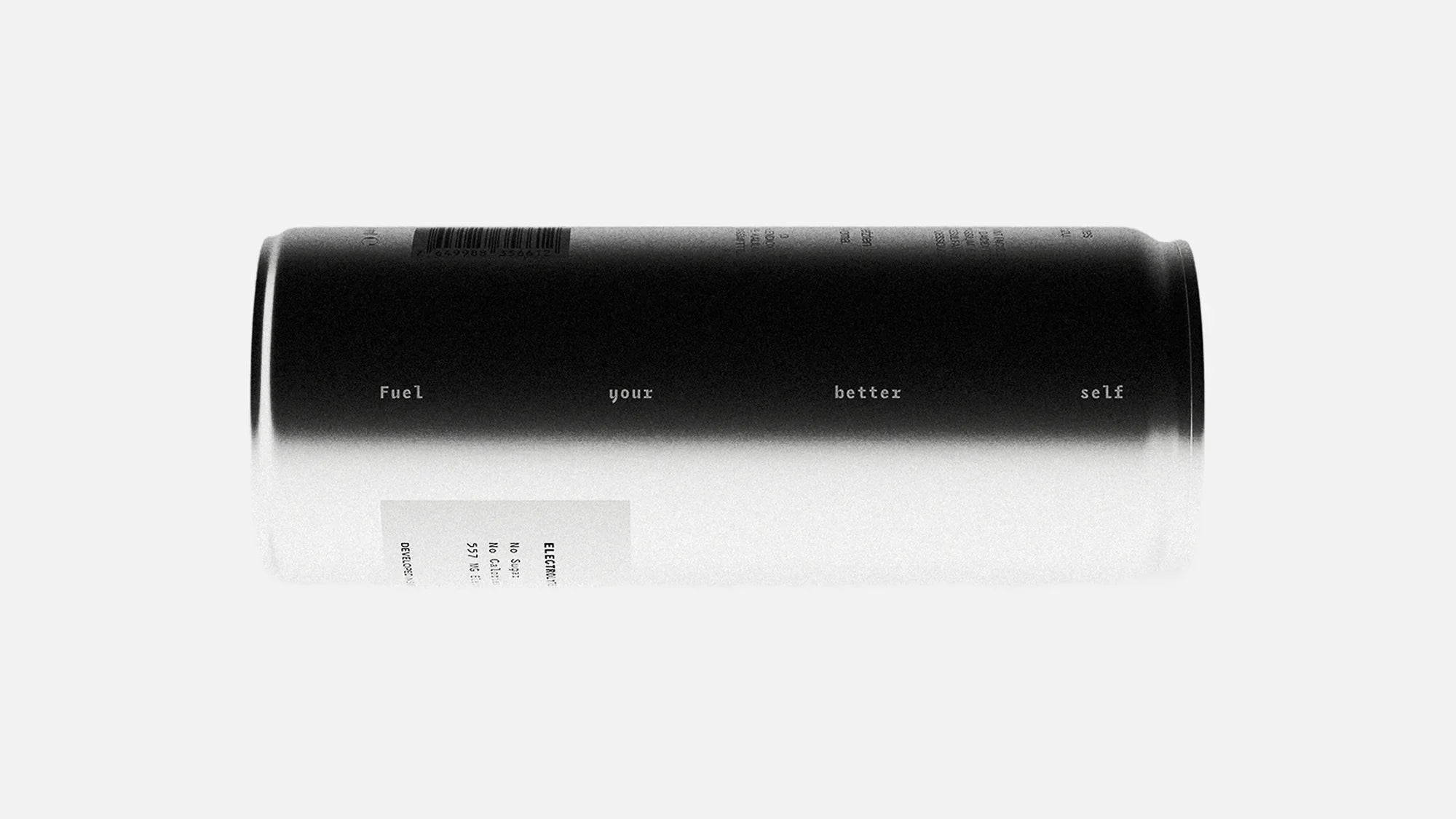
Sports hydration drinks usually shout from the shelves with saturated colours and italic typography, mimicking energy drinks rather than the calm of the products they claim to be.
When ADDRESS ARTS began work on REVIVR with founders Ilan Cattaneo and Clément Tastet, the brief pointed in the opposite direction. The brand is Swiss, the founders came from a luxury background steeped in watchmaking and precision engineering, and they wanted to create a canned electrolyte drink that felt closer to those reference points than to anything currently on the shelf.
“Our decision to stick to our DNA rather than industry standards was intentional from the beginning,” says Cattaneo, REVIVR’s Co-Founder. “We are passionate about the sectors that dominate Switzerland. Our goal wasn’t to add another loud product on the shelf, but to create a brand that goes beyond the can. A product you want to keep even once you’re done consuming it.”
That positioning shaped the design system from front-to-back. ADDRESS ARTS, founded in 2020 by Amr Elwan, partnered with Cattaneo and Tastet to build the brand from the ground up – naming, strategy, identity, packaging, art direction and CGI. The name itself draws on the founders’ mother tongue: ‘revivre’ is French for ‘to live again,’ a phrase that dates back to the moment Cattaneo was sidelined by an injury that kept him away from football for a year. The dropped final ‘E’ gave the wordmark a streamlined, ownable feel and made trademarking and URL acquisition possible in one motion.
For the logotype, ADDRESS ARTS settled on Pangram Pangram’s Räder. The choice was driven by a quiet visual gesture. “The elevation in letters ‘R’ and ‘E’ is a subtle nod to the Swiss landscape without using a direct illustration of a mountain across the brand application or on the can,” explains Elwan. The typeface’s rounded edges set against its block-like construction also carries something of the contrast Switzerland is known for: untouched nature held within engineered precision. Neue Haas Grotesk handles the brand’s primary typographic voice, while Pangram Pangram’s Air provides a monospace accent that suggests scientific credibility without the visual cliché.
On the can, a direct-printed white panel sits on a metallic surface, functioning as a built-in label that holds the essential information while leaving the rest of the can untouched. “The white panel acts as a container or the constraint, with all essential information displayed within it while not compromising the minimalist look of the can,” Elwan notes. That panel was developed against a strict grid ADDRESS ARTS built across the packaging design process, and its hierarchy was dictated by a single question Cattaneo posed early on: how can someone, in the first few seconds of holding the can, understand what REVIVR is? The science-backed electrolyte ratio – 250mg sodium, 247mg potassium and 60mg magnesium – takes the prominent position, with ‘No Sugar’ and ‘No Calories’ holding their own space. ‘Developed in Switzerland’ closes the panel. “Launching REVIVR from Switzerland wasn’t just about geography; it was about aligning the product with the precision, quality and trust that Switzerland represents,” Cattaneo tells us.
Texture runs through the brand as a recurring vocabulary. The matte finish on the can, the grain in the photography and the sculptural forms used in the visuals. Nowhere is it more deliberate than in the PR box, designed by ADDRESS ARTS to shape REVIVR’s first impression in the hands of partners and press, and produced by REVIVR in moulded recycled paper, wrapped with a yellow label carrying the brand’s tagline. “It mimics the raw mineral forms that inspire the brand, creating a direct tactile connection to what electrolytes are: essential minerals,” Cattaneo explains. The pulp reads as raw stone from a distance and as something hand-held and deliberate up close, and its sustainability sits naturally inside a brand built on restraint. “We wanted to create a collectable piece, something people would display rather than discard.”
The system extends through a 12-can carton that holds the same minimal typography and strict spatial hierarchy, and a black performance bottle that completes the ecosystem. CGI was introduced into the workflow early, allowing ADDRESS ARTS to test design directions and refine visual decisions before sampling or production began, and to keep the brand’s art direction inside a controlled experimental space. The reference points ADDRESS ARTS drew on were the rocks, snow and calm lakes of the Swiss landscape, alongside legacy watchmaking and contemporary Swiss exports such as On – a vocabulary of raw, textured, precise and restrained marks that the team translated into something built to scale beyond its home market. “We believe that staying close to our Swiss core and reason for being is what will give us a deep advantage in the industry,” Cattaneo reflects. “The brand speaks a universal language of modern wellness, but it’s rooted in something specific.”